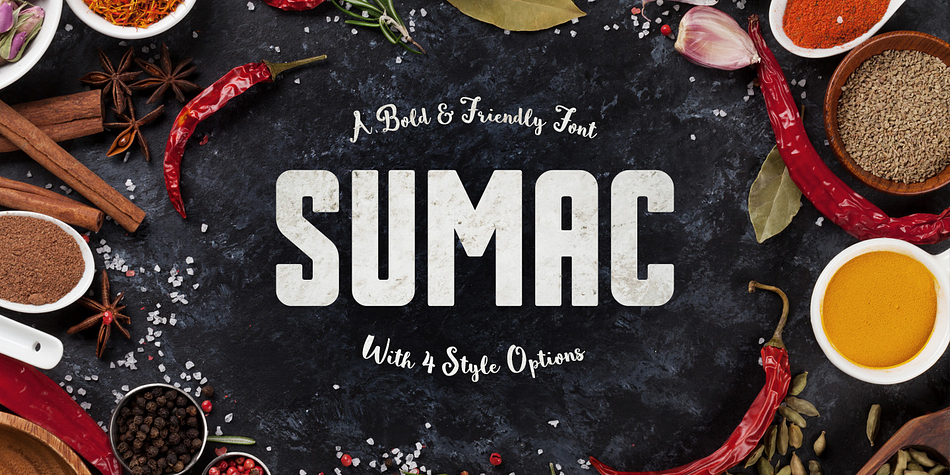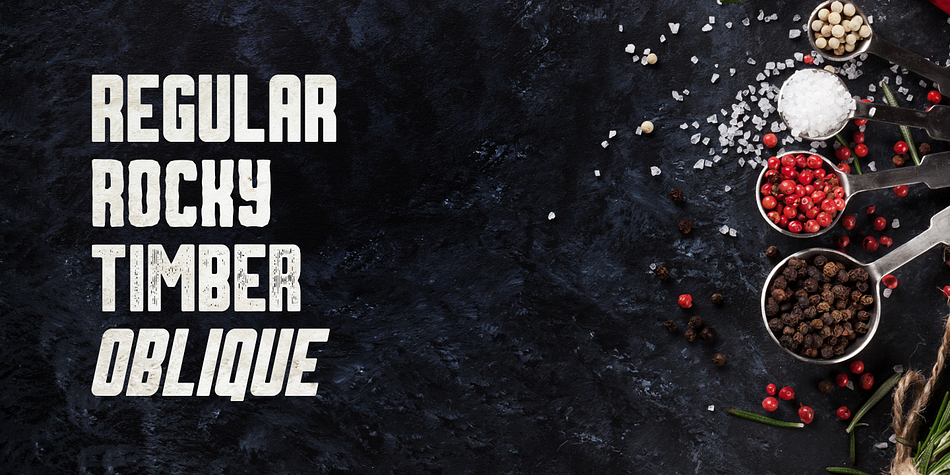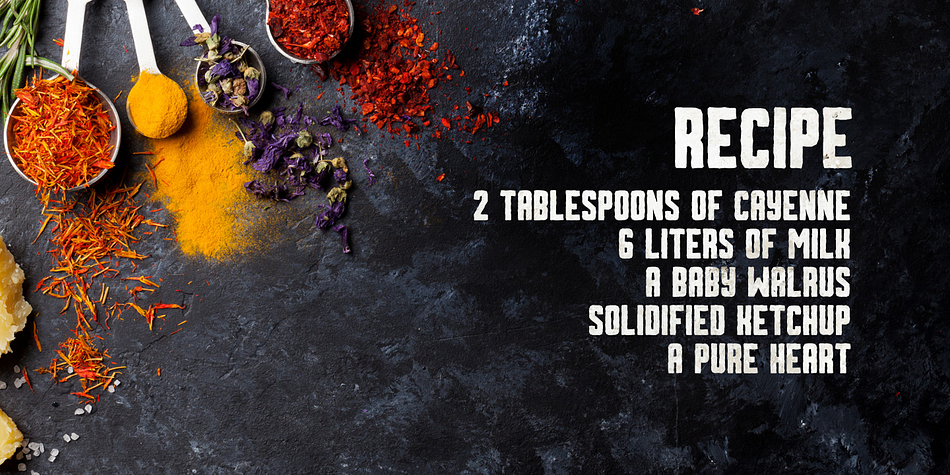
Sumac is a display sans font family. This typeface has four styles and was published by Tugcu Design Co.
Sumac is a big and friendly typeface that’s great for titles, book covers, posters and any other project where you need an impactful but personable headline.